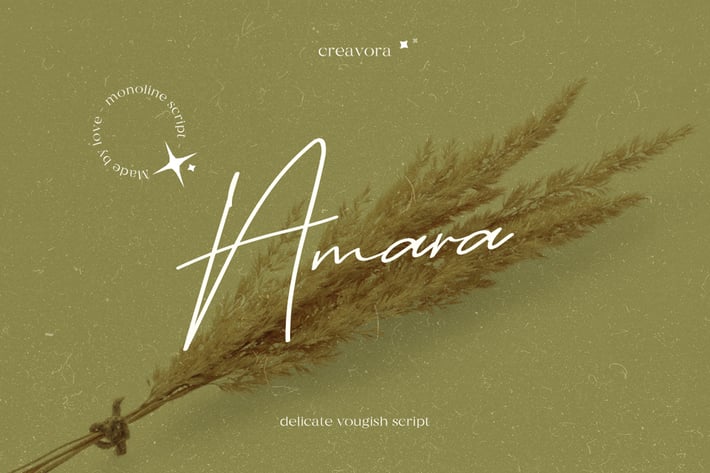
Amara - Signature Script Font
Introducing Amara - Signature Script Font
Amara is a special signature font that comes up elegance into your projects. It looks smooth, clean, and best of all, it's easy to read. Use it for your logos, invitations, and any branding projects.